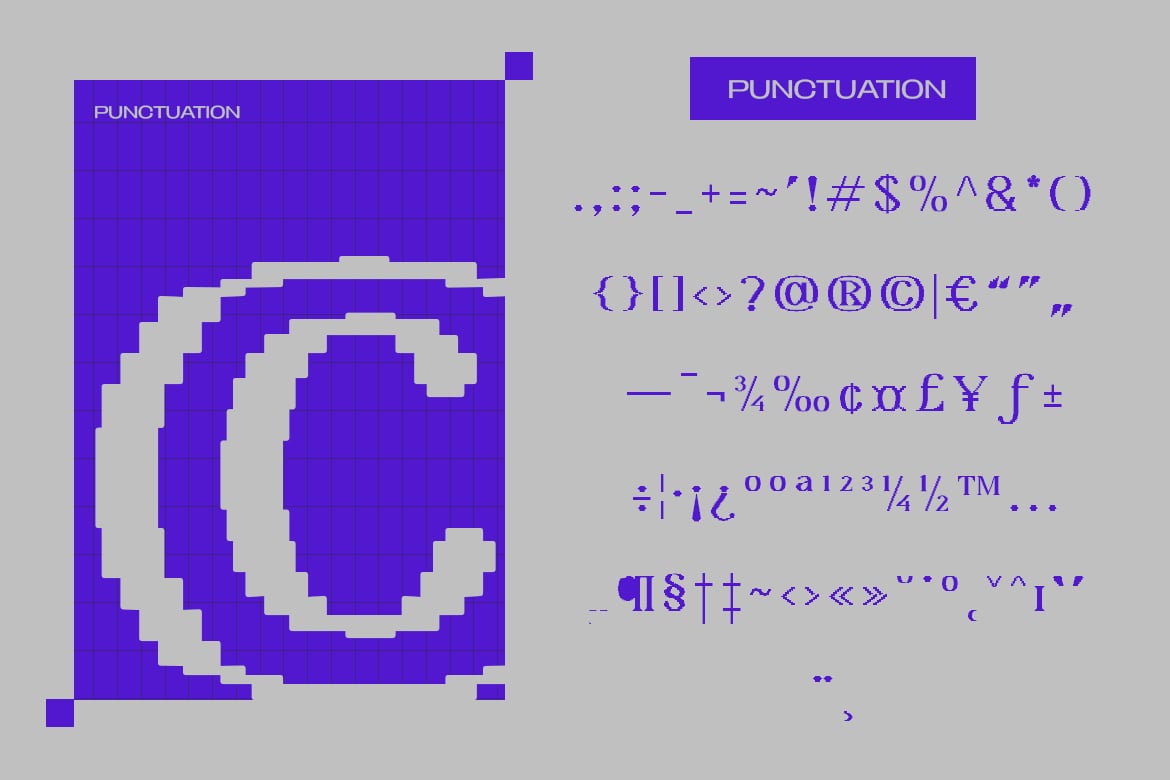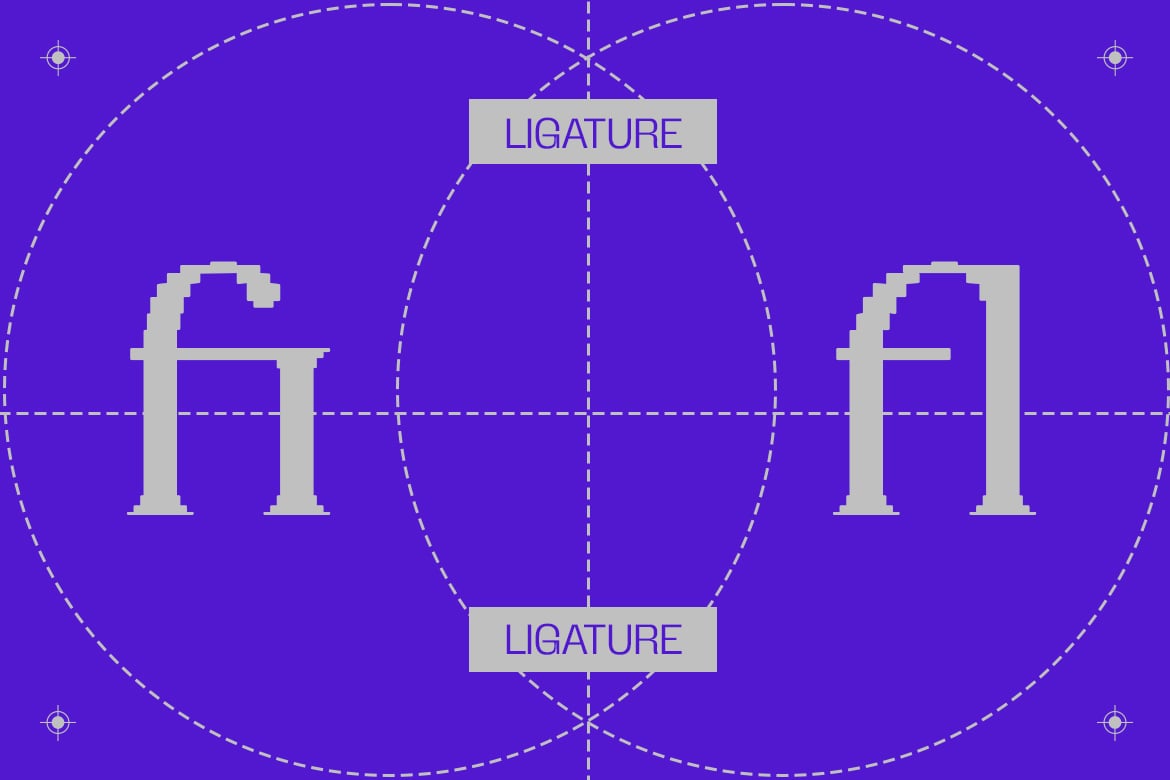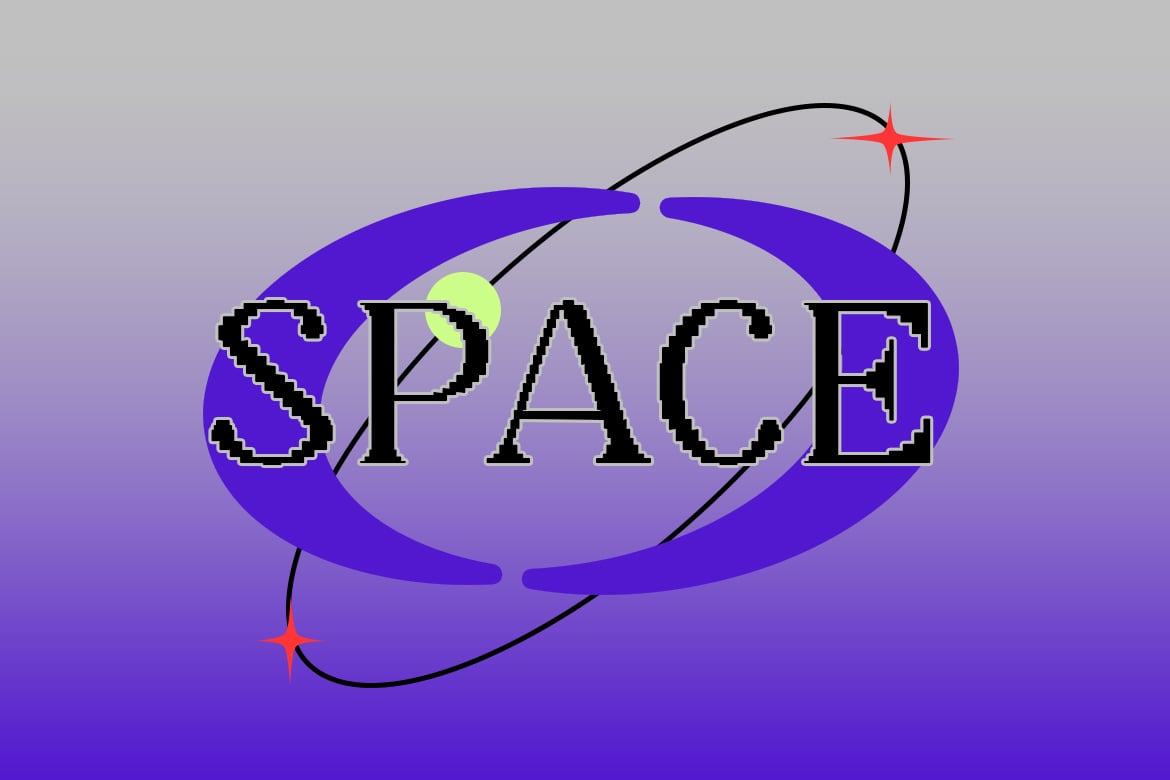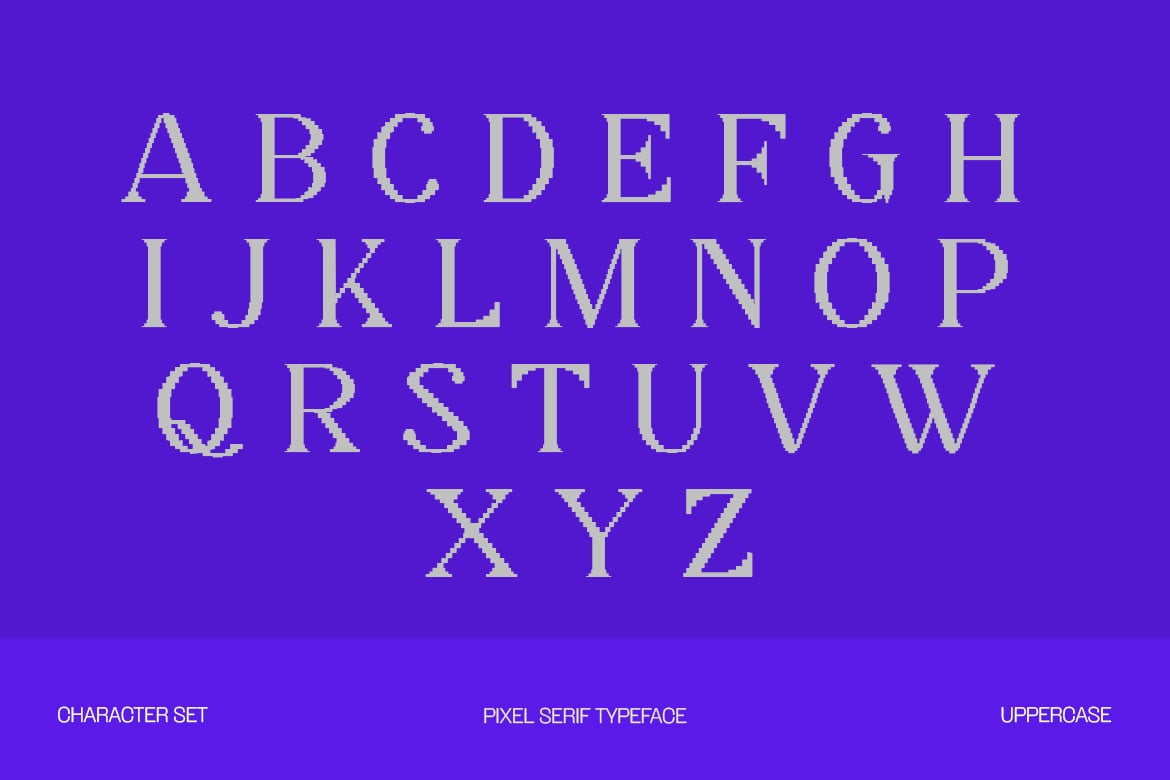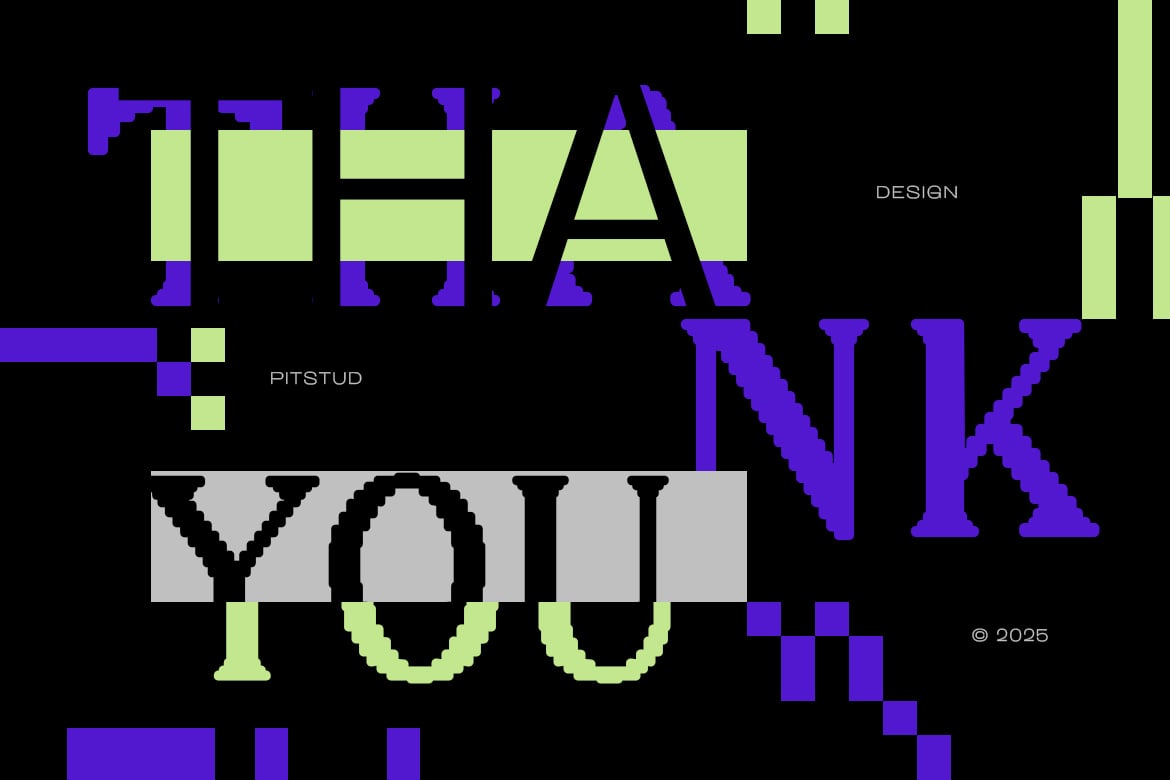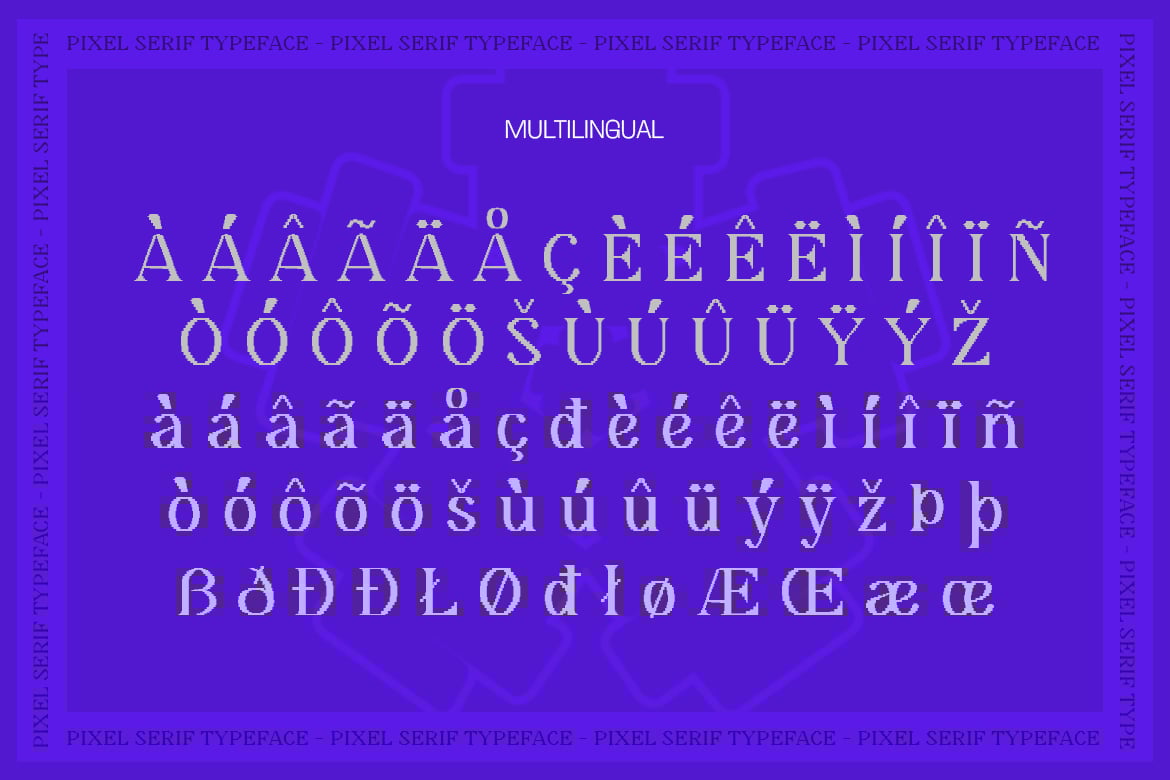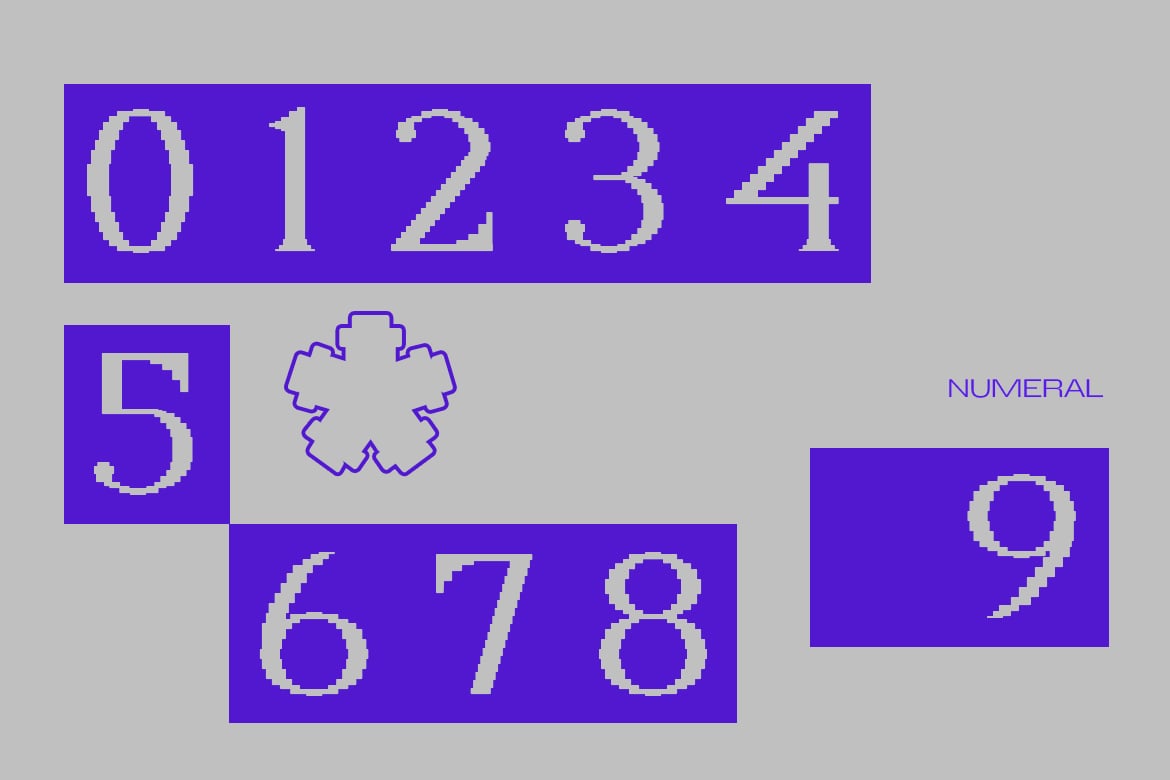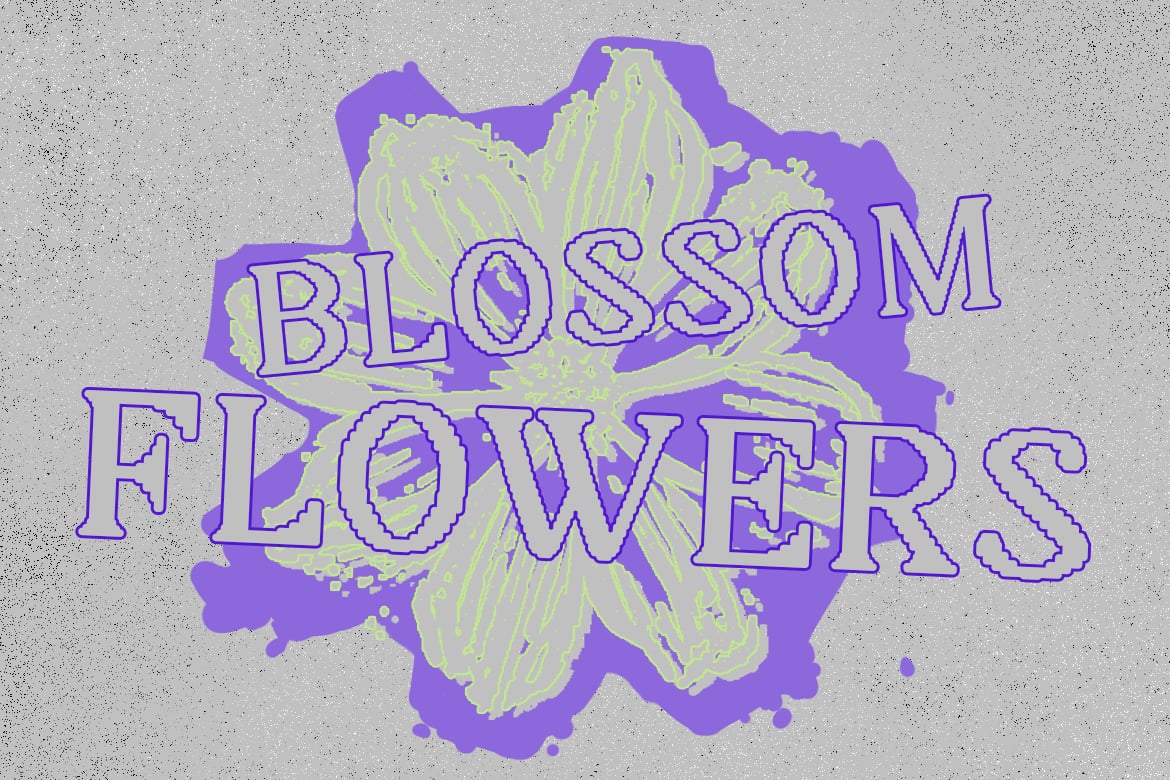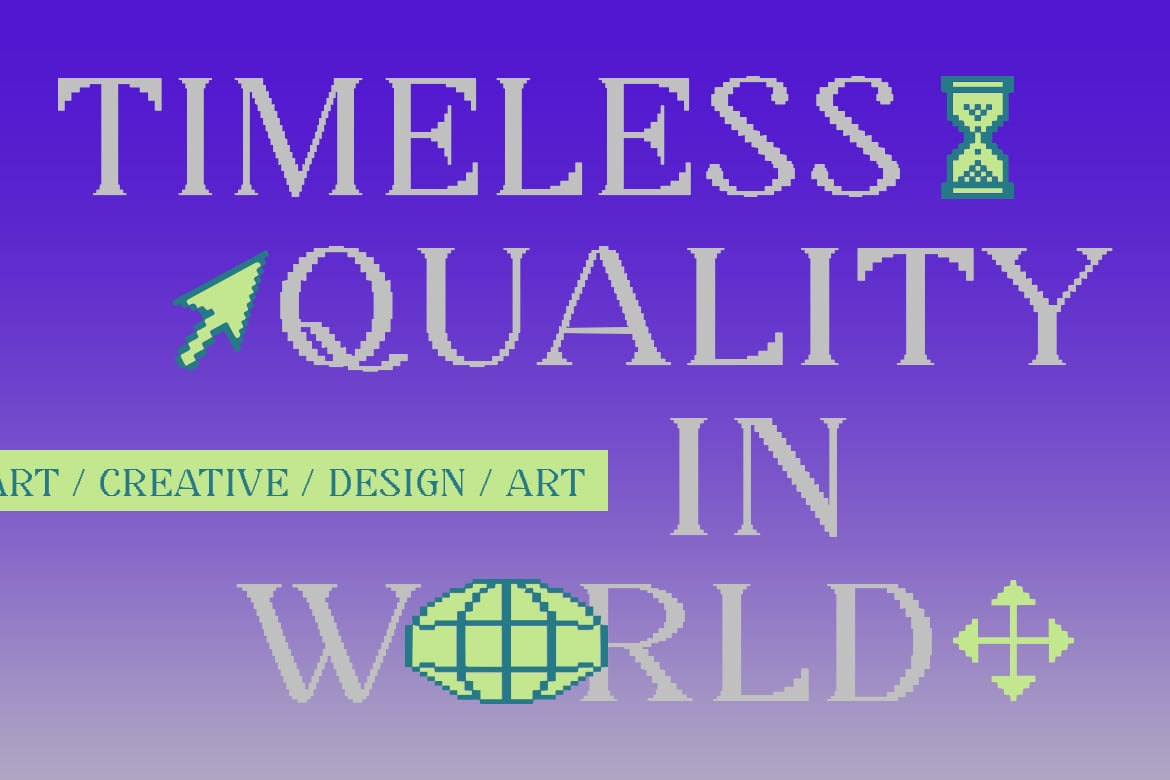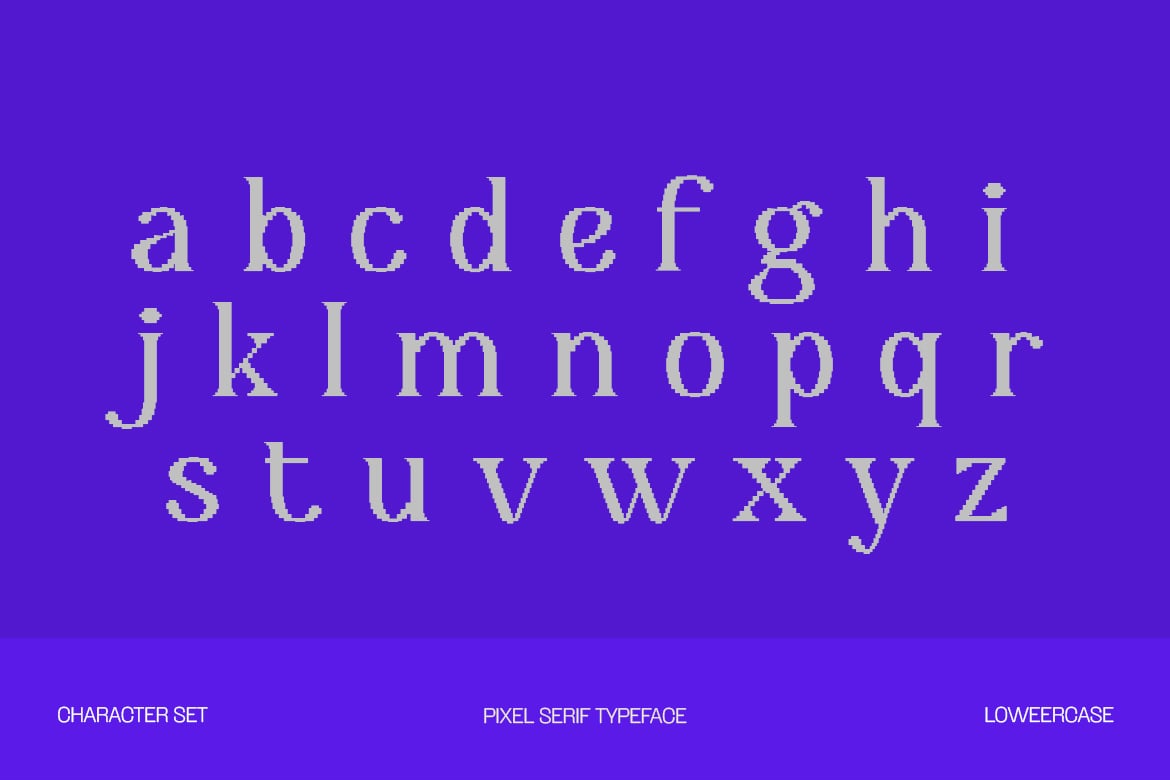
Pixelag – Retro Arcade Font
Pixelag
is a premium retro pixel font designed to bring nostalgic 8-bit arcade vibes to your branding and design projects. Crafted with modern bitmap precision, this font offers a sleek, stylish, and professional touch for logos, marketing materials, packaging, and digital applications.
Perfect For
Whether you’re working on a gaming brand, Pixelag will give your design a playful edge. It’s ideal for use in video game titles, esports logos, twitch overlays, retro-themed advertisements.
Font Features:
- Clear and Versatile Design: Offers easy readability with a modern style that stands out in both digital and print mediums.
- Complete Character Set: Uppercase and lowercase characters, numbers, punctuation, and symbols.
- OpenType Features: Access alternates, ligatures, and unique stylistic sets to customize your design.
- Multilingual Support: Includes support for multiple languages, including English, Spanish, French, German, Portuguese.
Pixelag combines blocky pixelated structure to create a striking visual impact while maintaining clarity. Whether you are designing for indie games, tech startups, retro branding, this font adapts to your needs and enhances the visual appeal of your design.
Perfect For:
- Gaming Branding: Enhance your game identity with nostalgic pixelated fonts.
- Esports & Twitch: Give your streaming overlays a bold, retro arcade look.
- Retro Advertisements: Bring an 80s vibe to your marketing materials.
- Tech Startups: Perfect for high-impact projects in the tech industry.
- Indie Game Titles: Create bold, eye-catching game visuals.